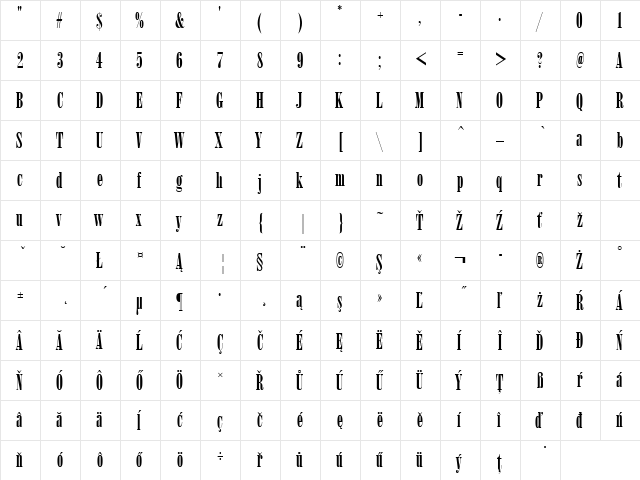
ArsisDEEReg Regular
Design Context for ArsisDEEReg Typeface
ArsisDEEReg is a composed and adaptable typeface that performs quietly and consistently across a wide range of design contexts.